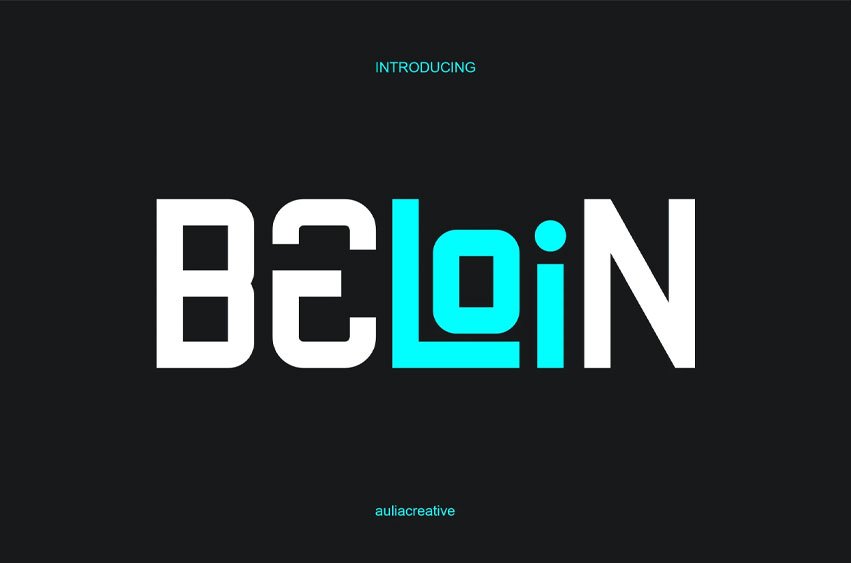
Beloin Font
Beloin Font Sans Logo Font is and awesome and authentic display font.
It fits in headlines, logos, posters, flyers, invitations, name cards, branding materials, print media, editorial layouts, and many more.